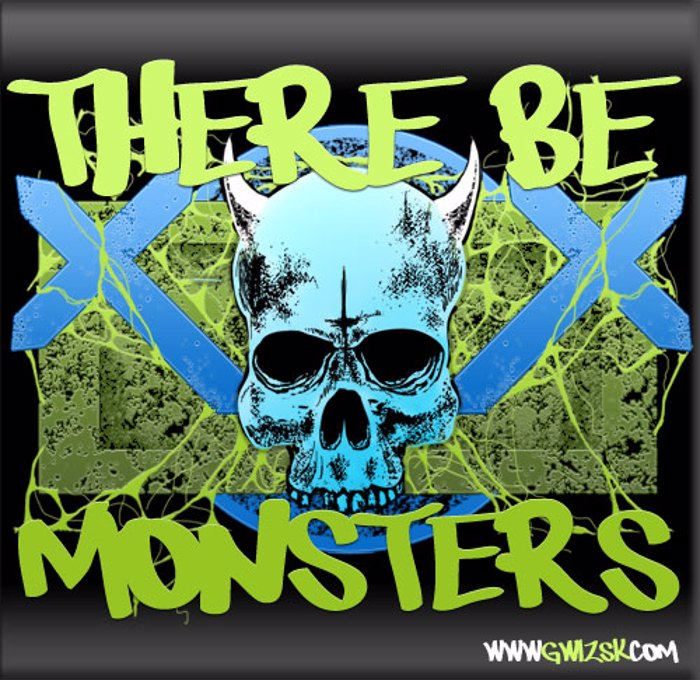
There be monsters Font
There be monsters Font is a Marker font and was created on . There be monsters Font has been downloaded 1,401 times, added to 37 collections, and liked 1 times.
Cette font est pas mal car elle représente une police urban relativement lisible par rapport à celles qu'on a l'habitude de voir.